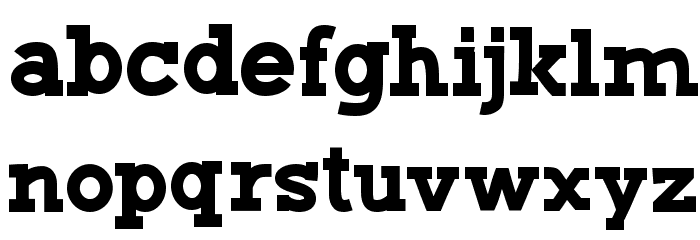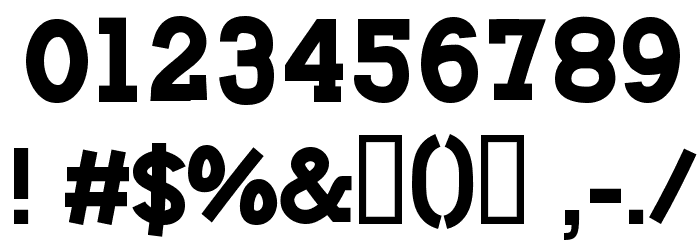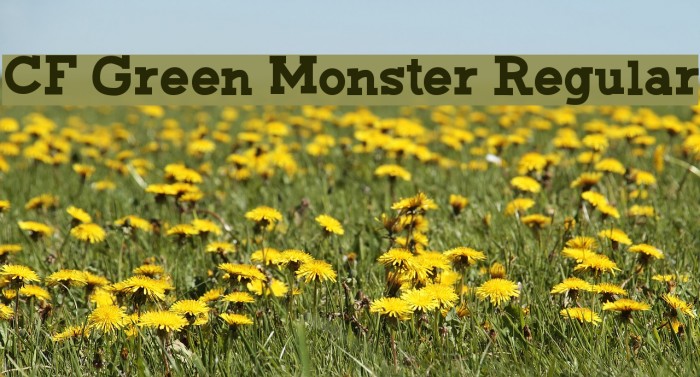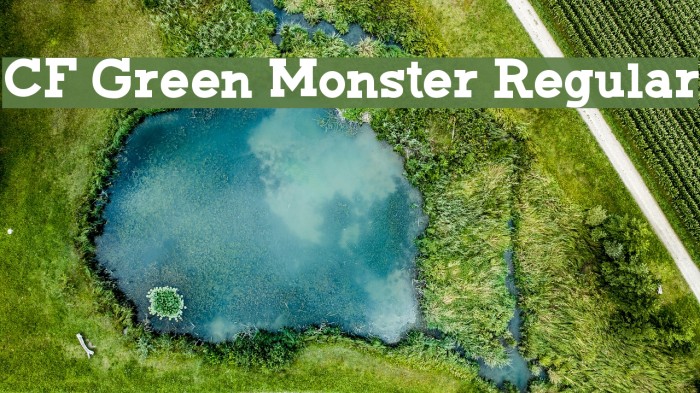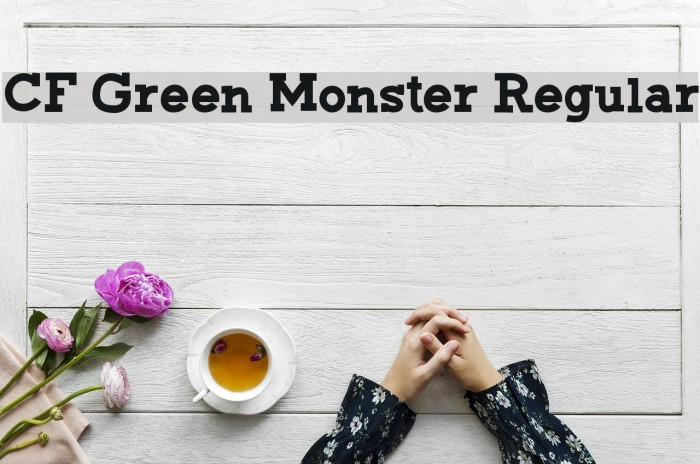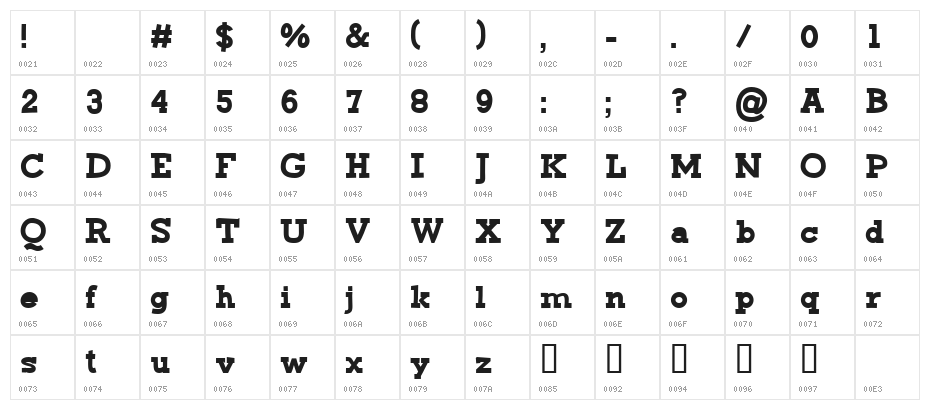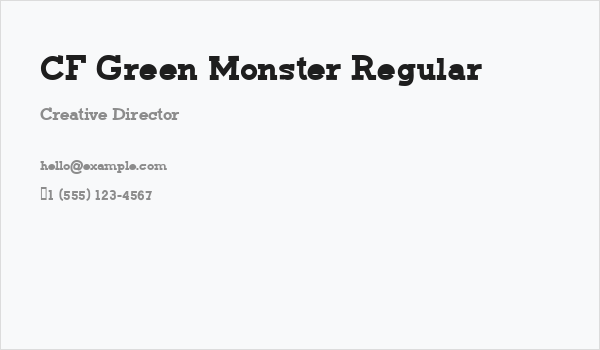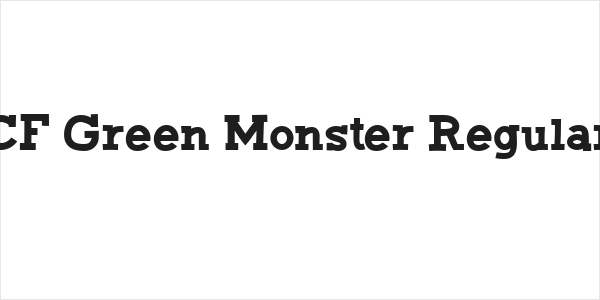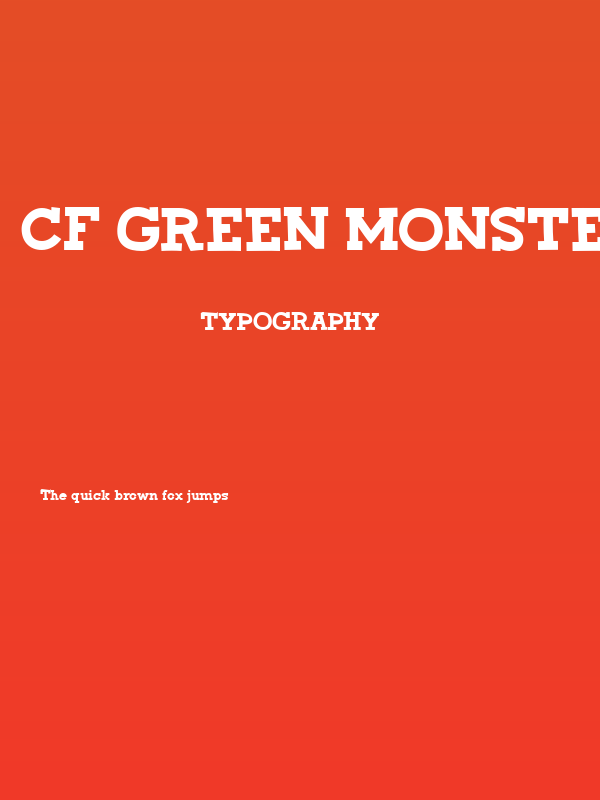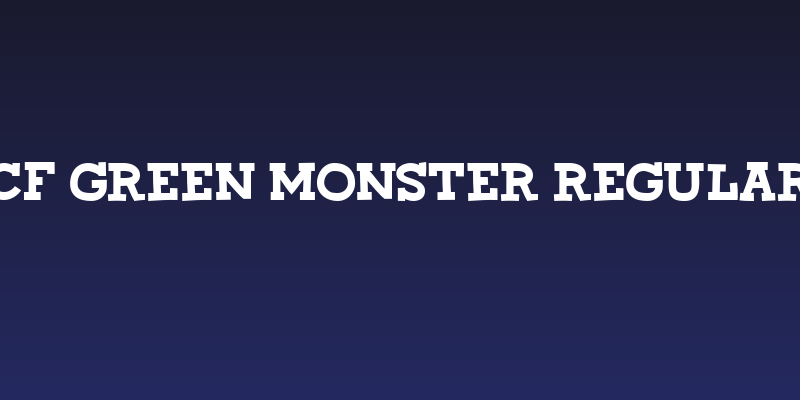
CF Green Monster Regular Font
This font features a bold and robust design with thick, consistent strokes that convey a sense of strength and stability. The characters are well-defined with a slight curvature that adds a touch of elegance to the otherwise strong appearance. The uppercase letters are particularly striking, with a commanding presence that makes them ideal for headlines and titles. The lowercase letters maintain the same boldness, ensuring readability and consistency across different text sizes. The numerals are clear and prominent, making them suitable for use in various contexts, from signage to digital displays. The special characters are designed with the same attention to detail, ensuring they integrate seamlessly with the rest of the font.
A bold, robust font with thick strokes and a strong presence.
- Proposed Projects: Ideal for branding, headlines, posters, and signage where a strong, impactful font is needed.